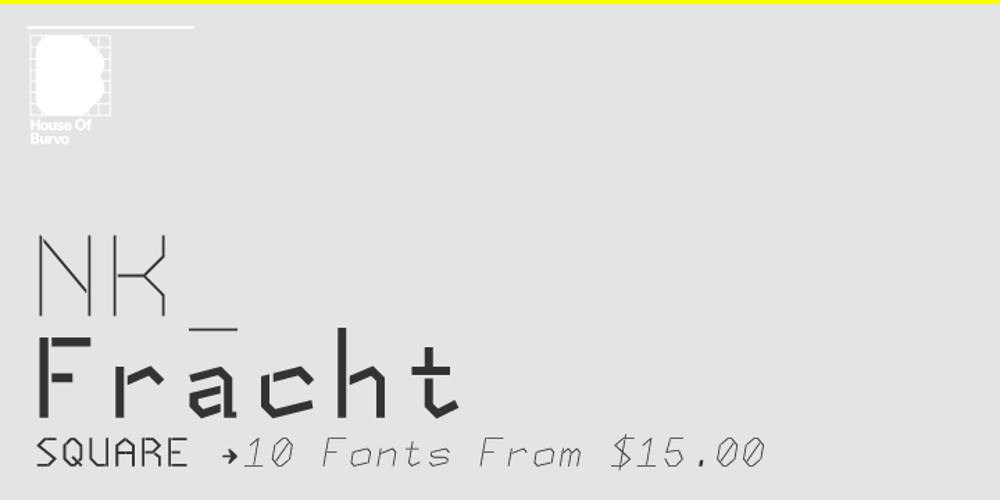
NK Fracht Square
NK Fracht Square font
NK Fracht Square Font Family was designed by published by HouseOfBurvo. NK Fracht Square contains 10 styles and family package options. NK_Fracht Square (meaning Cargo or Freight) is a stylized version of Neue Konstrukteur Square. It is more suited for headline and display purposes, but can also be used quite successfully for short blocks for running text and captions.